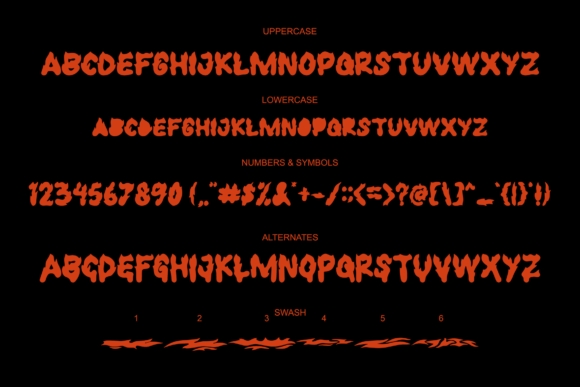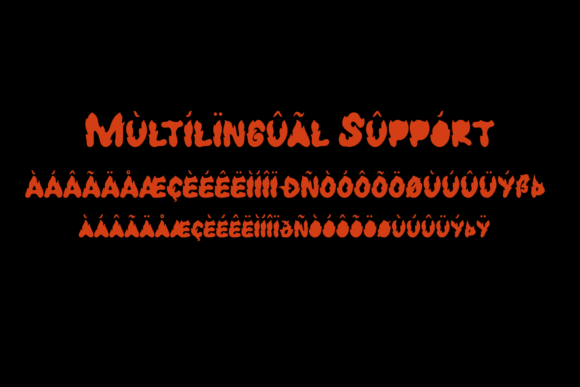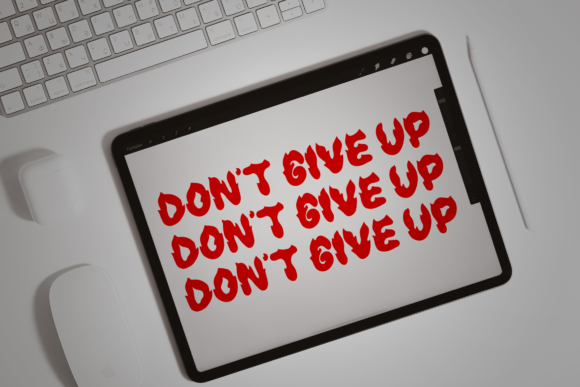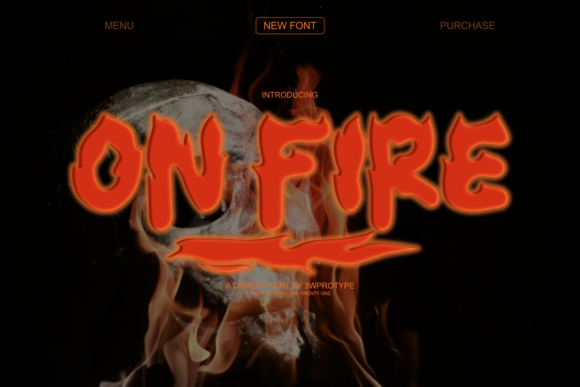
Introduction to On Fire Font
On Fire is a cool and interesting looking display font.
This type of font is suitable for letters and logos, invitations, labels, magazines, book, and more On Fire is PUA encoded which means you can access all of the glyphs and swashes with ease.